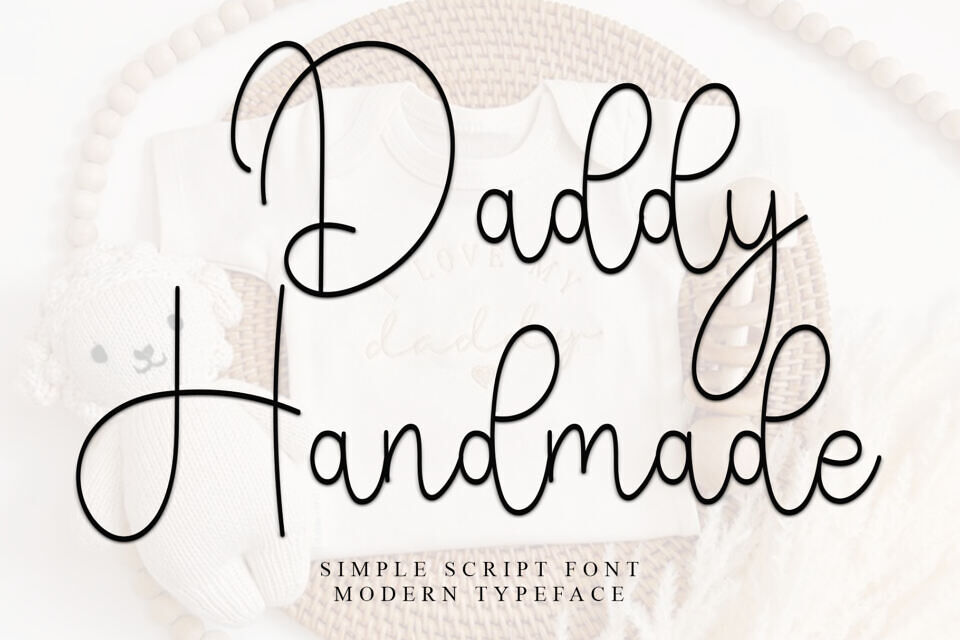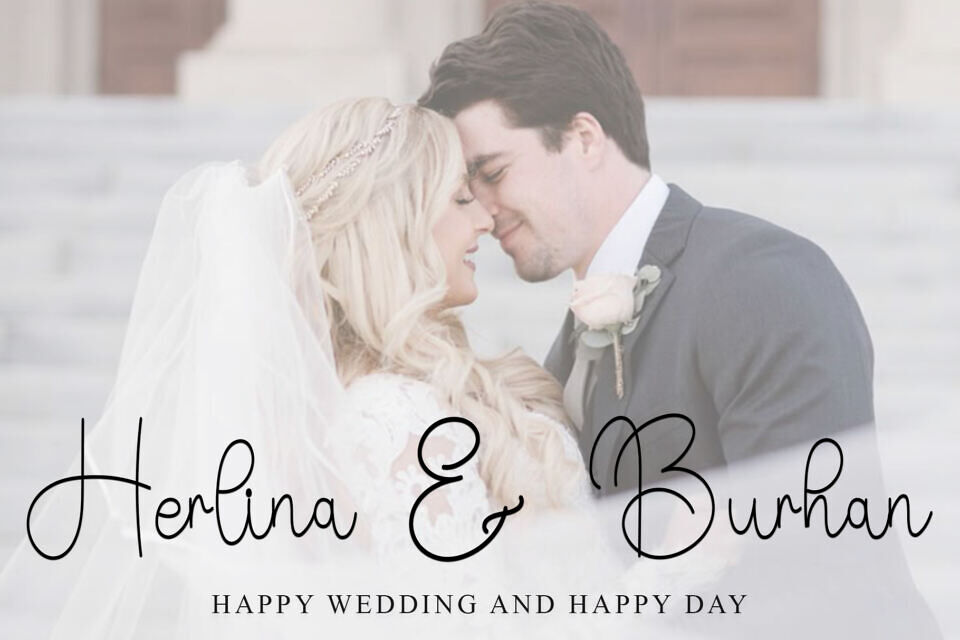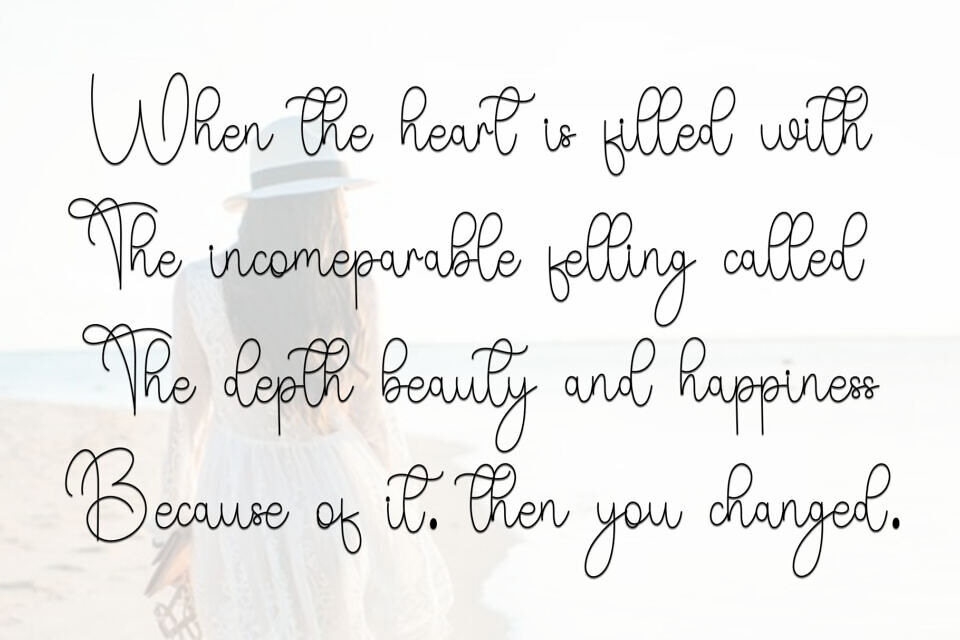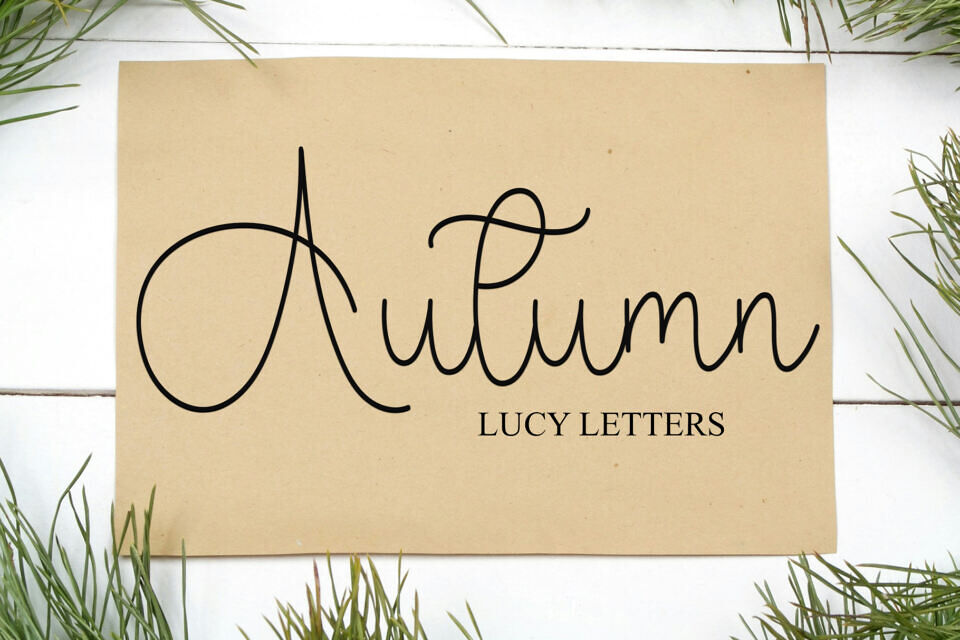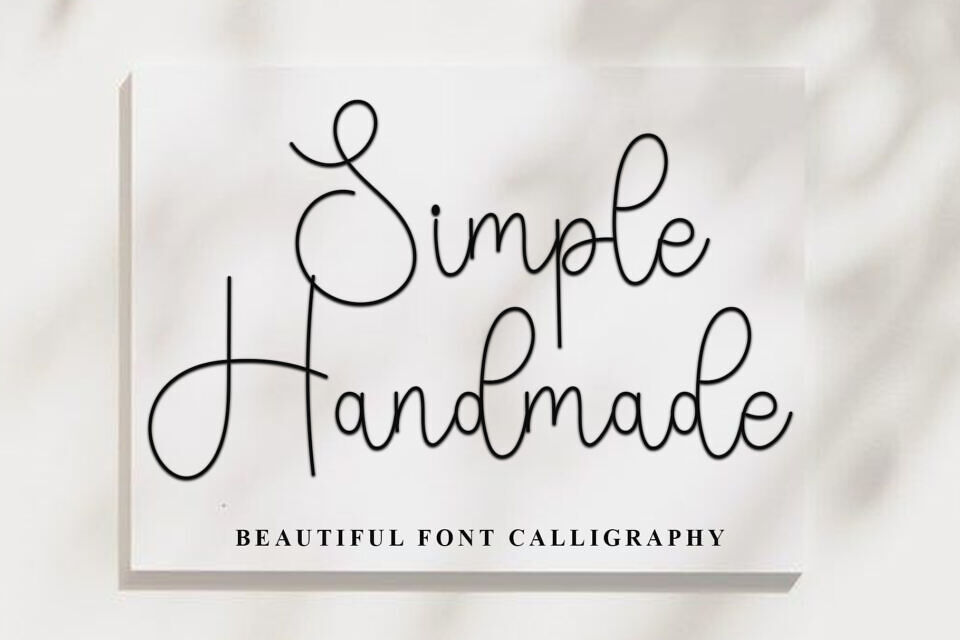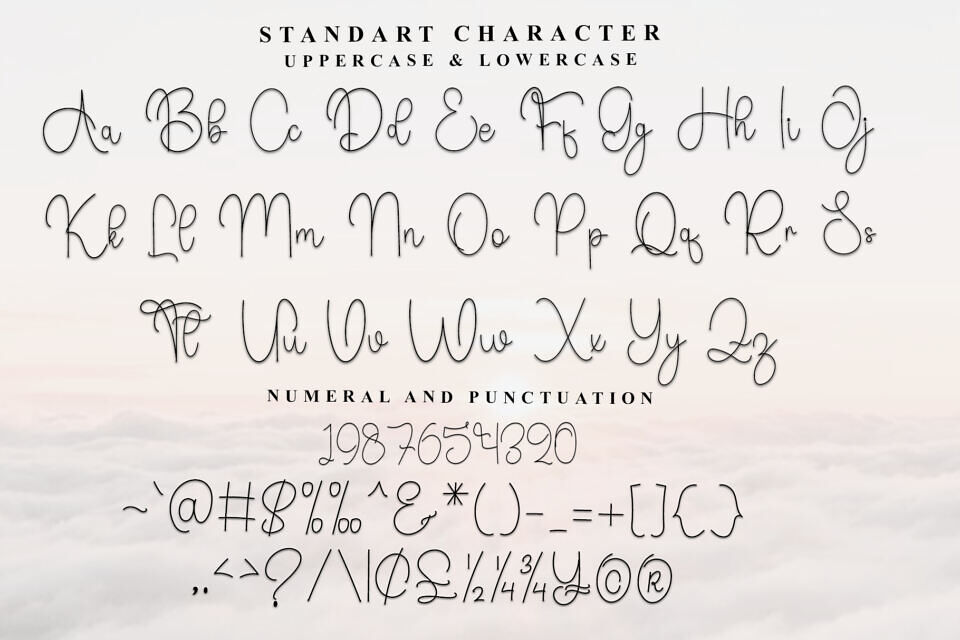
Vibes Handmade is a unique and expressive calligraphy typeface designed with hand-crafted appeal. Featuring flowing, elegant letterforms, it evokes a relaxed, organic feeling. Perfect for creating a personal touch in creative projects, this font blends modern style with a charming, casual vibe.
Whether you’re designing logos, branding, or invitations, Vibes Handmade Font adds warmth and personality to any design. Its organic flow and smooth curves make it ideal for projects where you want to communicate a friendly, authentic, and handcrafted feel.